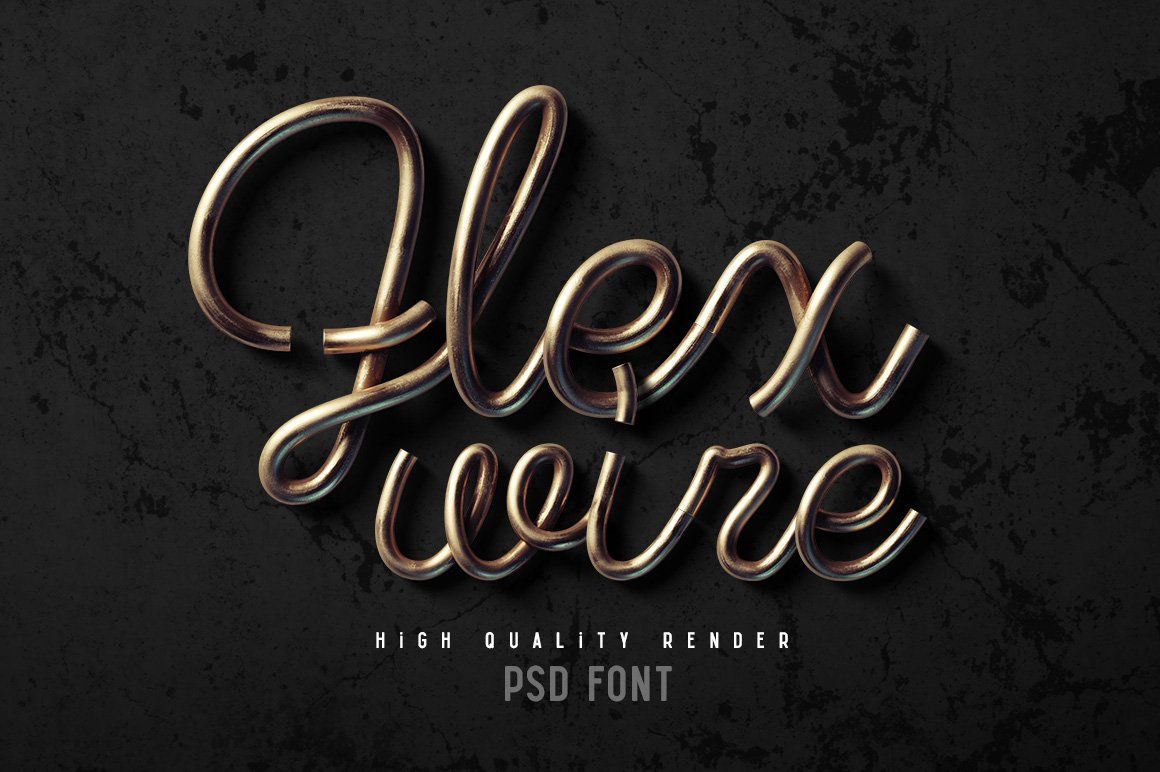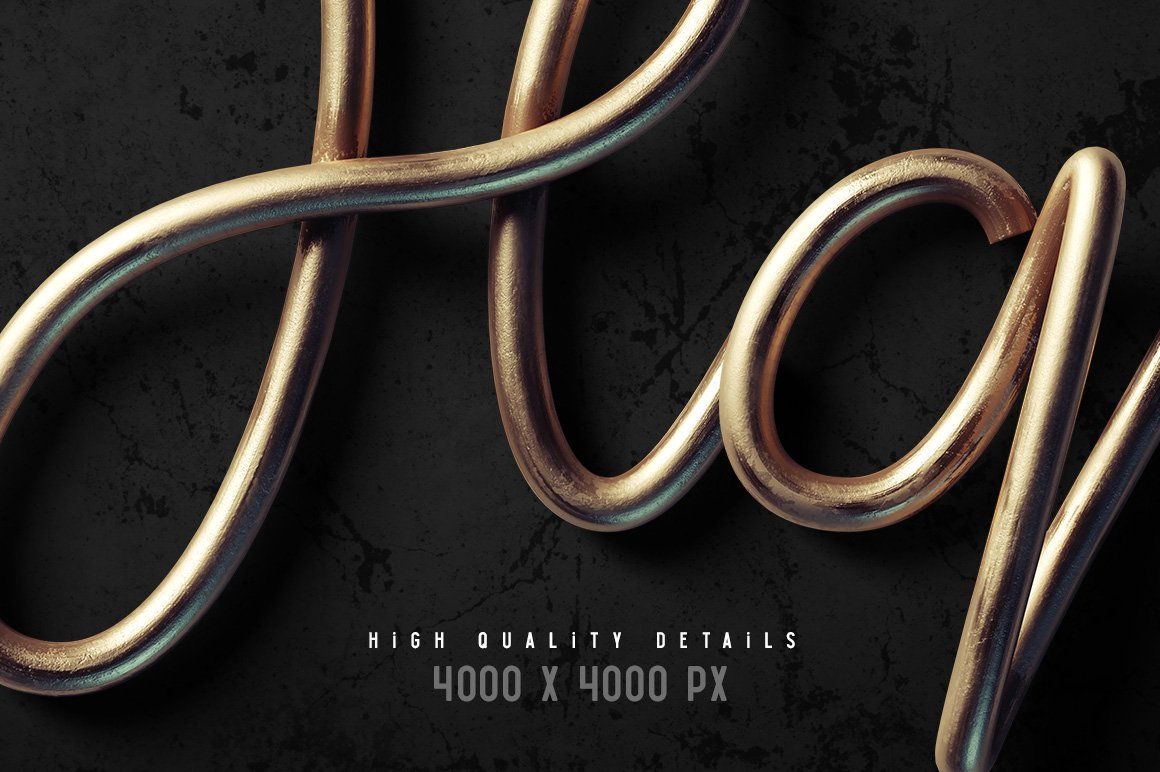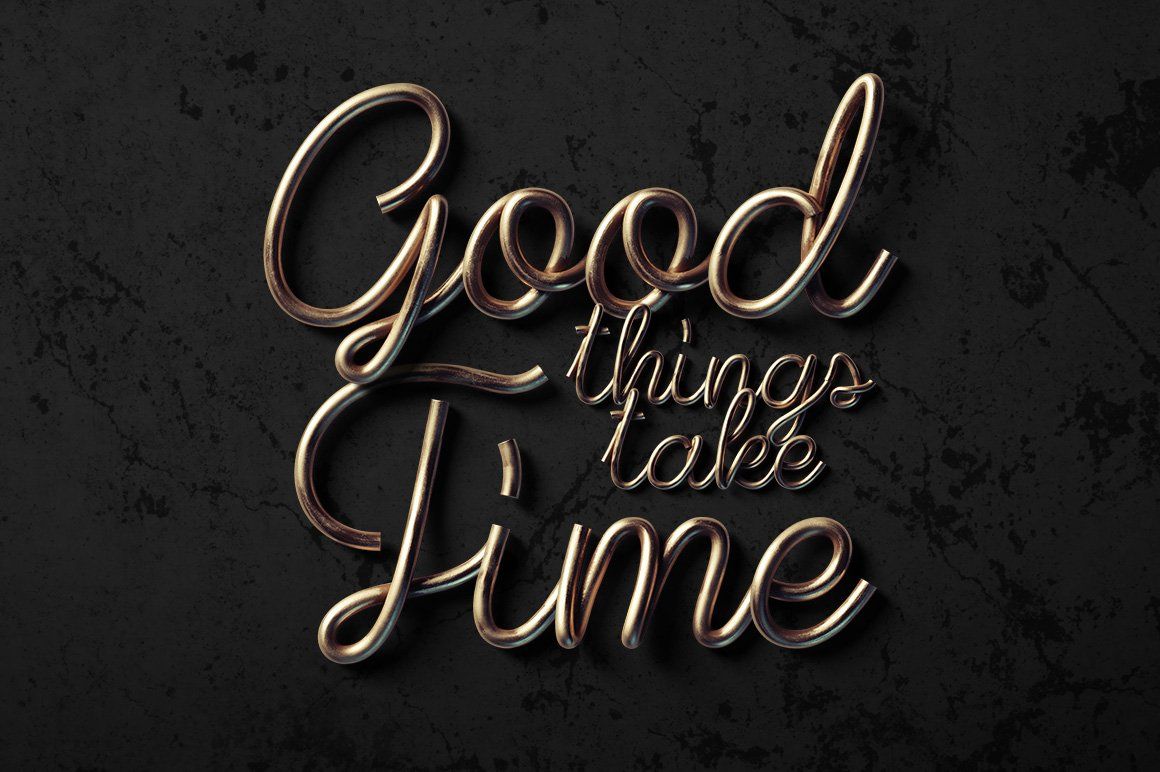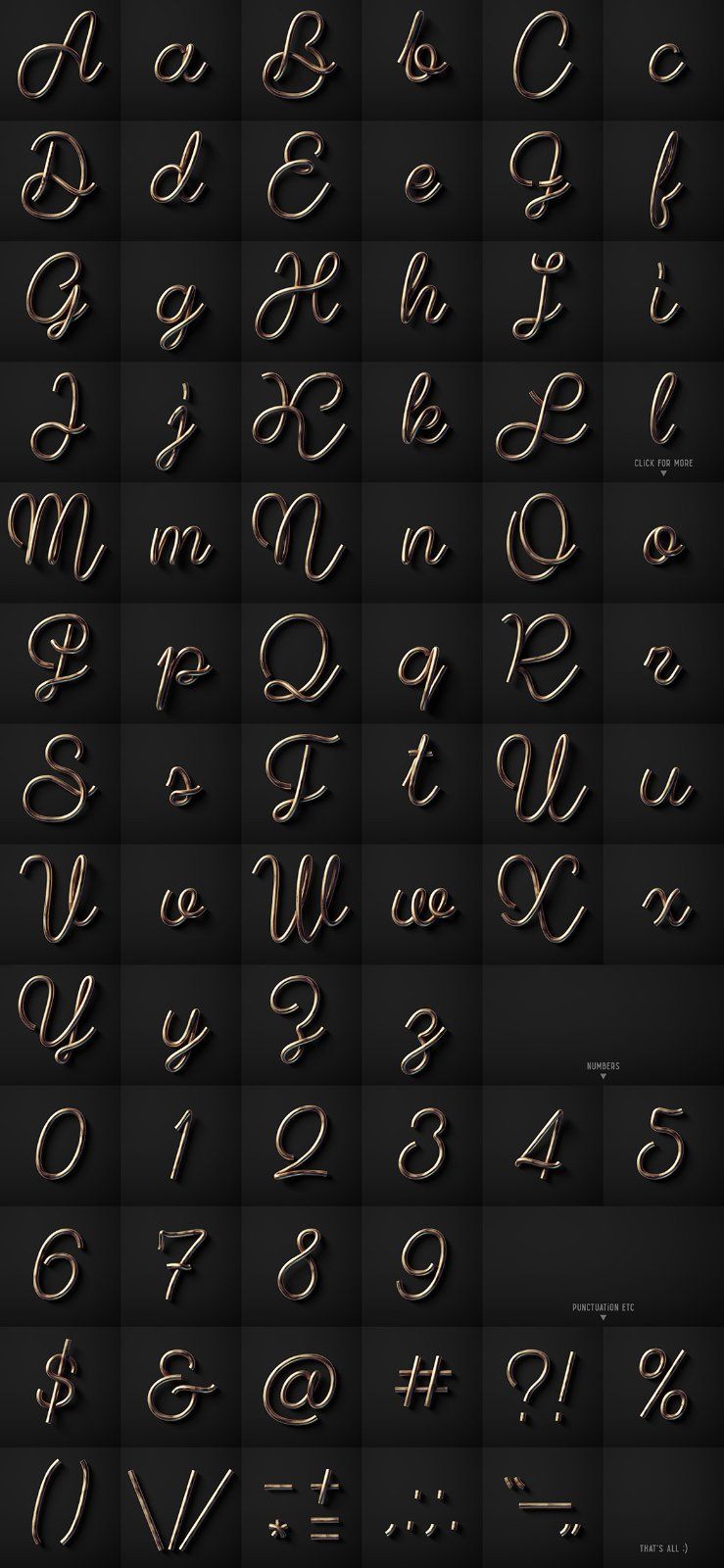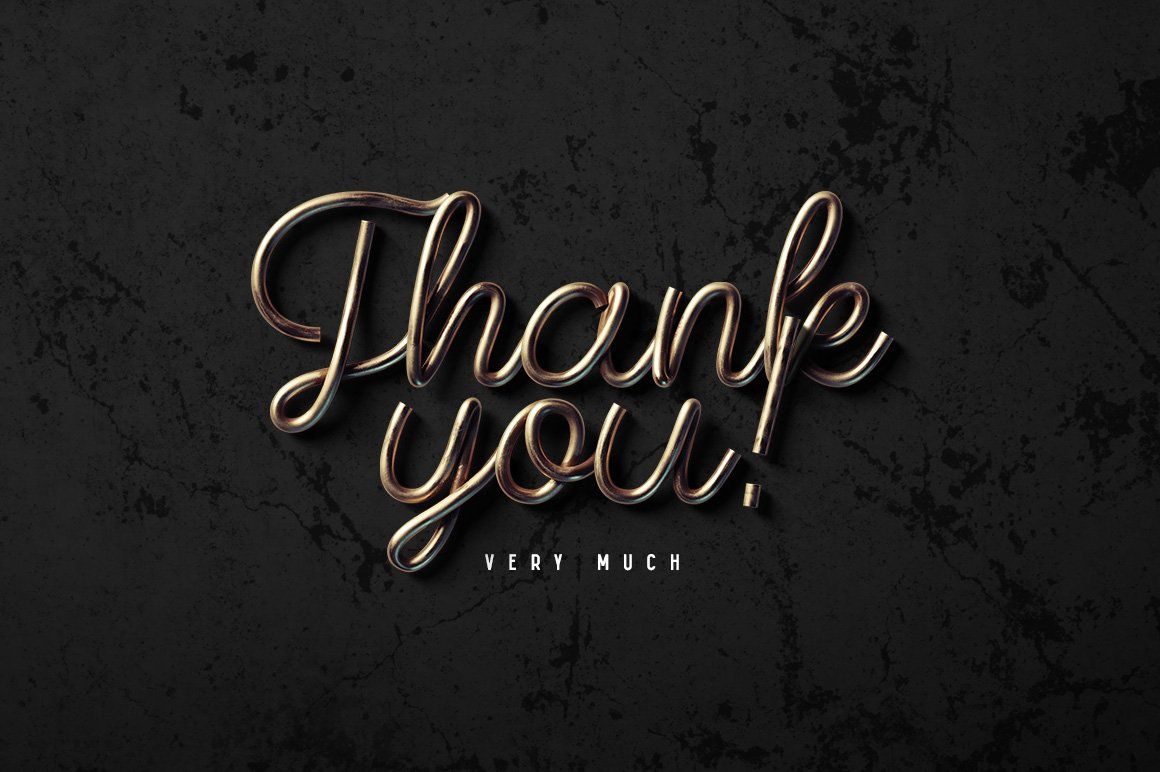
MarketplaceGraphicsFlex Wire PSD Font
Hello! Introducing a high quality PSD font set named "Flex wire". It's a 3d rendered letters, it consists of 73 layered PSD files with transparent background (all characters you can see on the 4th screenshot). Each file has resolution 4000x4000 pixels. Also you will get all this files in PNG format with lower resolution.